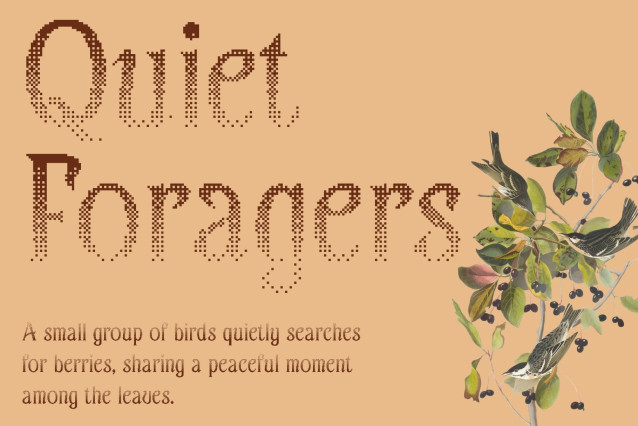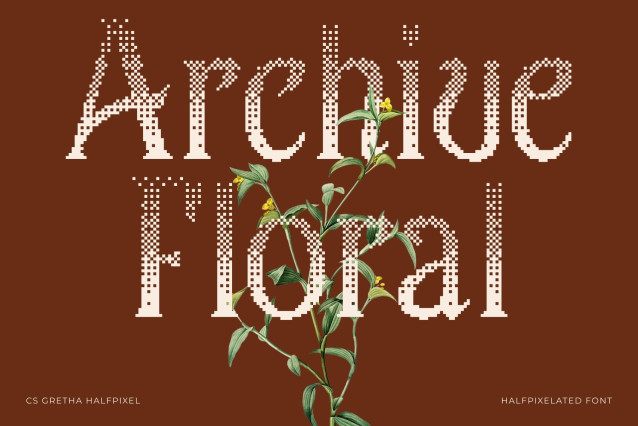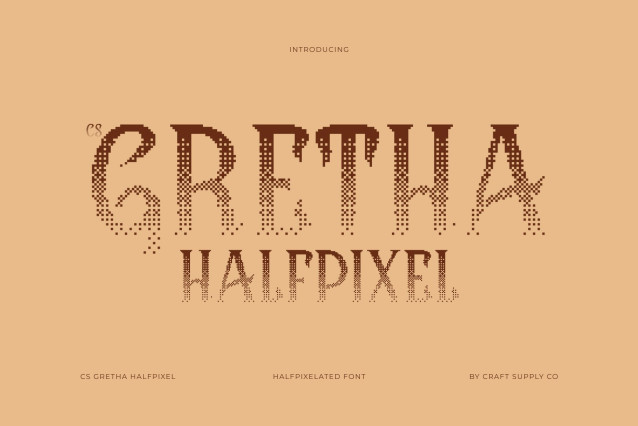
CS Gretha Halfpixel – Display Serif Font: Where Elegant Sophistication Meets Digital Artistry
Elegant Serif Forms with Artistic Character
This is a display serif font that seamlessly combines elegance with artistic flair. Its refined serif details and graceful proportions create a luxurious visual rhythm that feels sophisticated, expressive, and modern. Every letterform carries a polished presence, making the font perfect for creative projects that seek both beauty and individuality.
Halfpixel Effect with Smooth Digital Refinement
This font delivers a softer and smoother appearance than traditional rigid pixel fonts. Through subtle anti-aliasing techniques, the font creates gentle blurred edges that preserve a retro-digital atmosphere while introducing a cleaner and more refined finish. This effect gives the typeface a futuristic yet elegant personality.